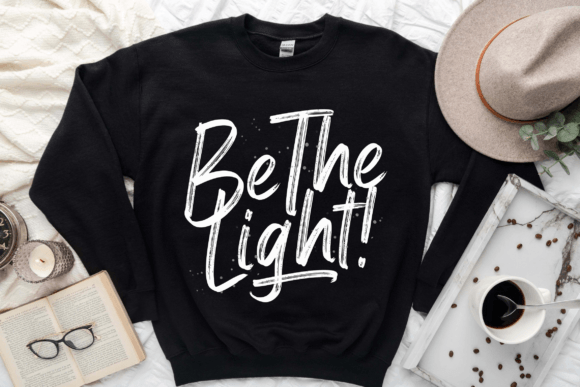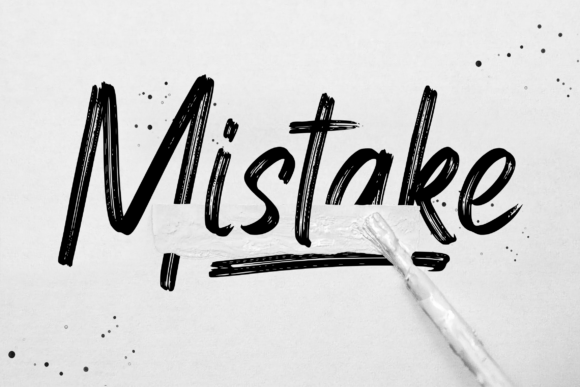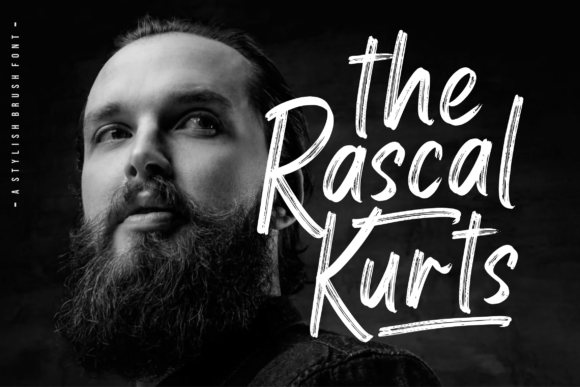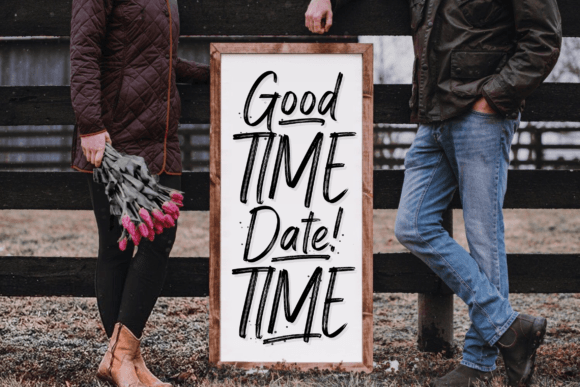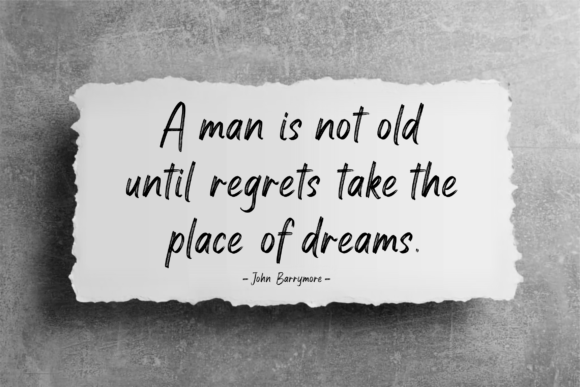
Where Words Meet Art: The Beauty of Brushways Font
You know that moment when you see a beautifully designed product or logo, and it instantly sparks an idea in your mind? For designers, it’s a moment of pure inspiration. And what makes it even more captivating is the font that brings it all together. That’s where Brushways Font comes in – a stunning brush font designed to elevate your designs and leave a lasting impression.
Built for product packaging, branding projects, magazines, social media, weddings, and more, Brushways Font is the perfect tool for designers who want to add a touch of elegance and sophistication to their work. Its versatility and stylish flair make it a valuable addition to any design project, allowing you to express your creativity and bring your ideas to life in a unique and captivating way.
Key Features of Brushways Font
- Font Family: Brushways Font is a unique, handwritten font that comes in 4 styles – Brushways Regular, Brushways Italic, Brushways Bold, and Brushways Bold Italic.
- Character Set: Supports a wide range of characters, including Latin, Cyrillic, and Greek alphabets, as well as punctuation and symbols.
- Size: Offers a large character set with over 1000 glyphs, including ligatures and swashes, to provide a high level of customization and expressiveness.
- Resolution: Designed to be scalable and suitable for use at various resolutions, from low-resolution print materials to high-resolution digital displays.
- Unique Characteristics: Features a hand-drawn, brush-like appearance with subtle imperfections and texture, giving it a natural, organic feel that’s perfect for creative projects and branding.
Designer Review: Brushways Font
I recently had the chance to work with the Brushways Font, and I’m excited to share my thoughts with you. Overall, I think it’s a great addition to any designer’s toolkit, but like any font, it has its strengths and weaknesses.
- ✨ The Brushways Font has a unique, hand-drawn feel that adds a touch of personality to any design. It’s perfect for creating a more relaxed, approachable vibe.
- ✨ The font is highly customizable, with a wide range of weights and styles to choose from. This makes it easy to find the perfect look for your project.
- ✨ The Brushways Font is also highly legible, even at small font sizes. This makes it a great choice for body text or headings.
- ⚠️ One of the main limitations of the Brushways Font is its lack of consistency across different font sizes and styles. At larger sizes, the font can start to feel a bit sloppy or uneven.
- ⚠️ Additionally, the font may not be the best choice for projects that require a more formal or professional tone. The hand-drawn feel can sometimes come across as casual or unpolished.
I think the Brushways Font is a great choice for designers who want to add a bit of personality to their projects. While it may have some limitations, I think the benefits far outweigh the drawbacks. With a bit of careful planning and customization, the Brushways Font can be a real showstopper.
Brushways Font is ideal for creating hand-drawn or handwritten text effects, making it perfect for:
– Creative titles and headings
– Short paragraphs and quotes
– Handwritten or cursive text effects
Experiment with different brush settings and styles to achieve the desired look, and don’t be afraid to combine Brushways Font with other fonts and design elements to create a unique and visually appealing design.